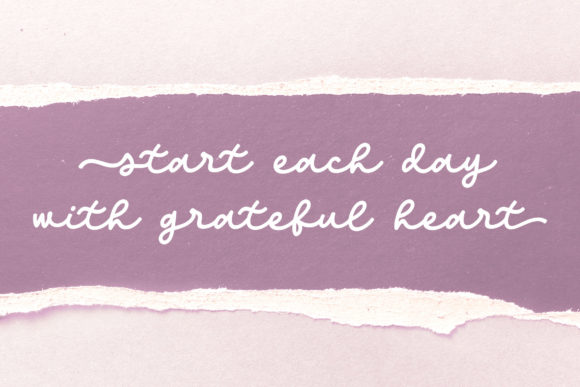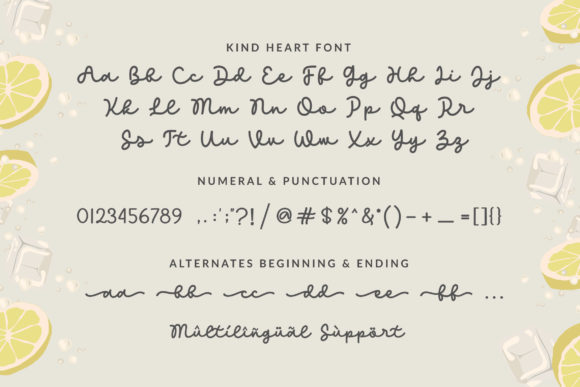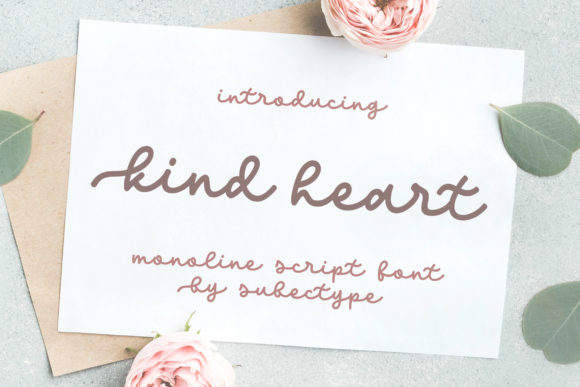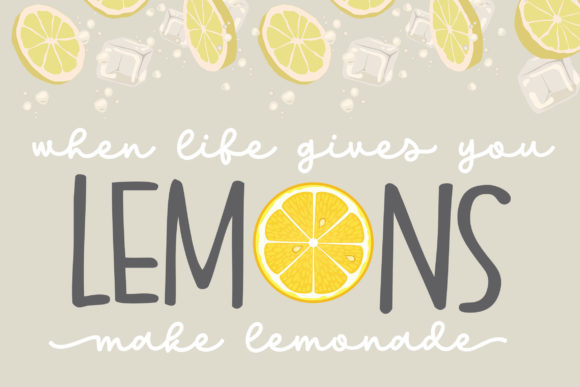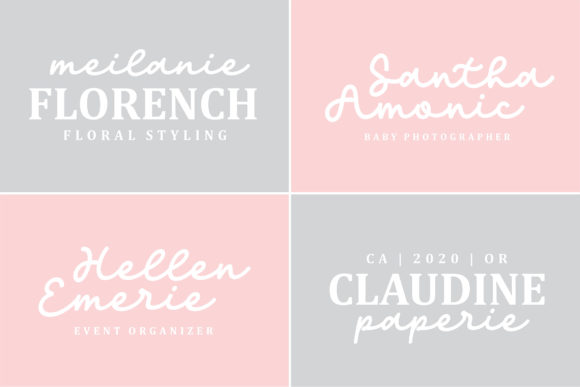
Kind Heart Font
Kind Heart is a cute and fresh handwritten font. It is PUA encoded which means you can access all of the glyphs and swashes with ease! It features a varying baseline, smooth lines, gorgeous glyphs and stunning alternates. The simple and flowing style of Kind Heart, effortlessly adds a romantic look to any craft idea.